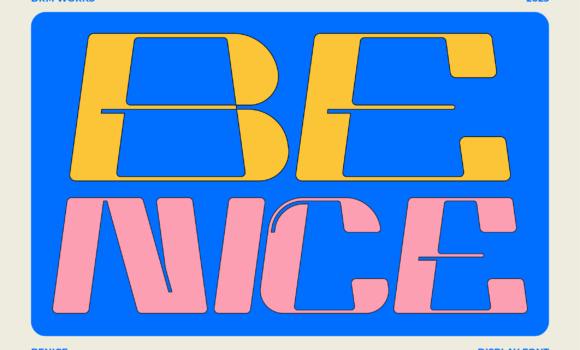
benice
Benice Font – Free Download Introduction to Benice Font Benice is a modern display font that is super bold and perfect for headlines. 📸 Preview Gallery 6 images 📌 Product Name Benice Font 👤 Author DRMWORKS 📂 Category Explore ⬇️